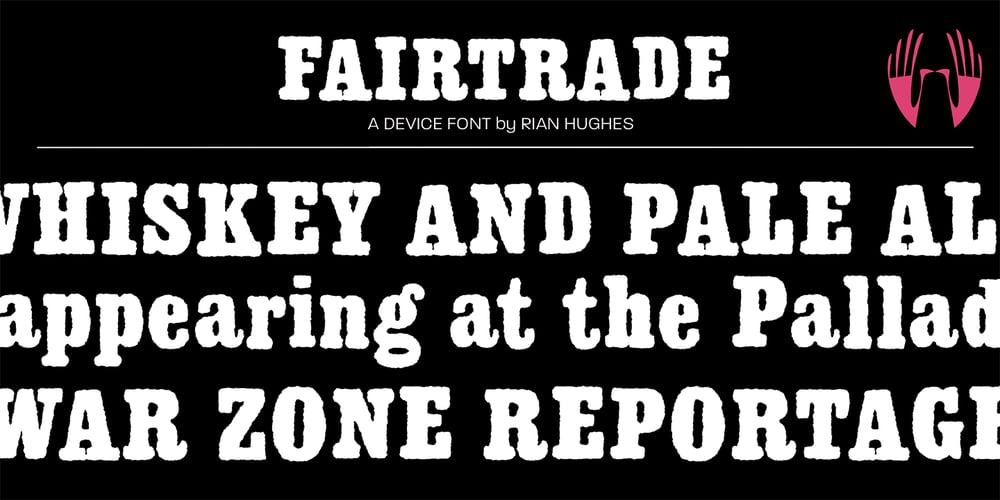
Fairtrade Font Family was designed by Rian Hughes and published by Device. Fairtrade contains 1 styles and family package options. Rough and ready artisanal lettering for your fair trade coffee shop, whiskey microbrewery or Victorian bill-poster — or, alternatively, distressed type for the cover of a hard-hitting novel set in a war zone.Fairtrade uses opentype technology to cycle through three versions of each character, giving an authentically uneven time-worn appearance.